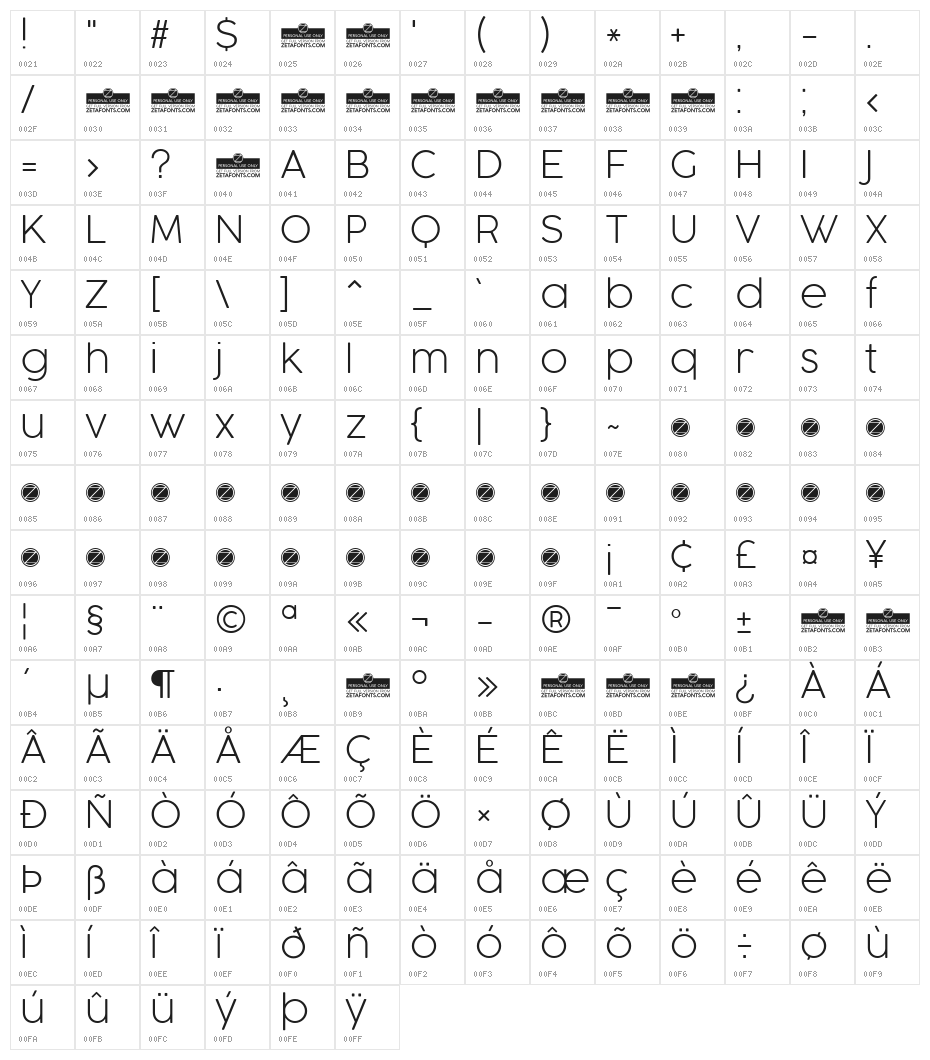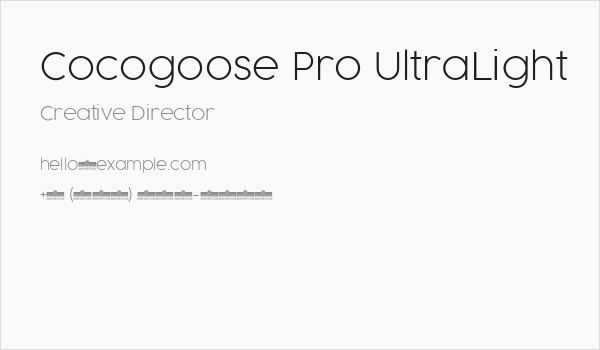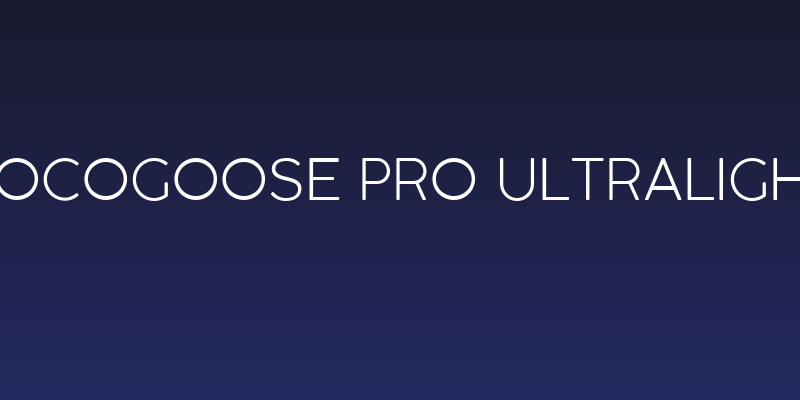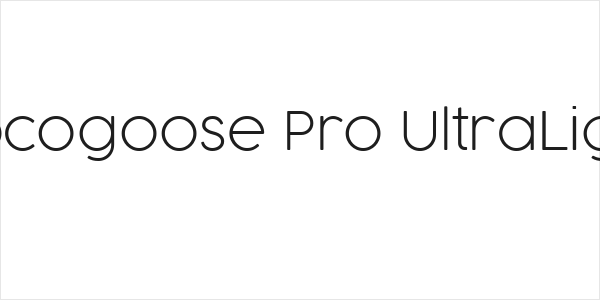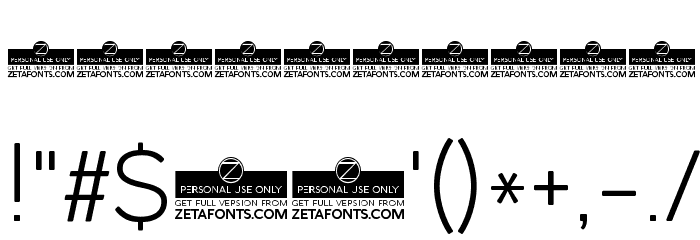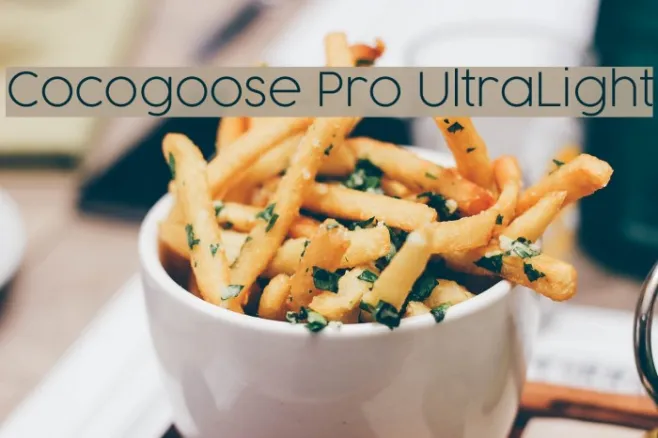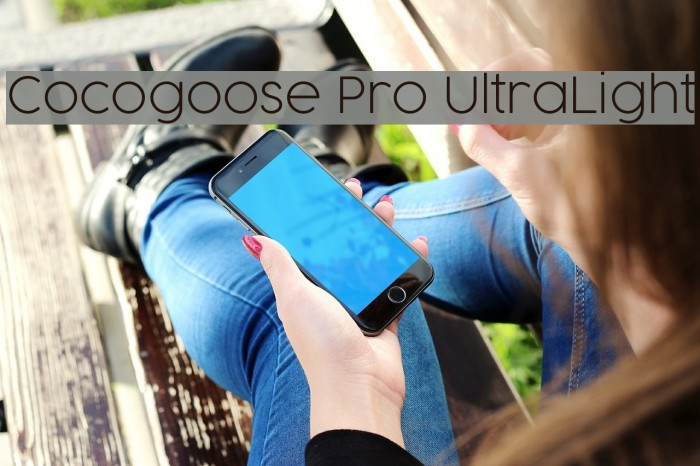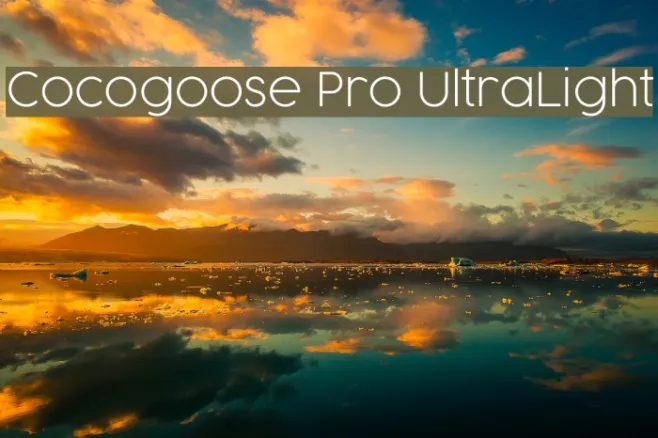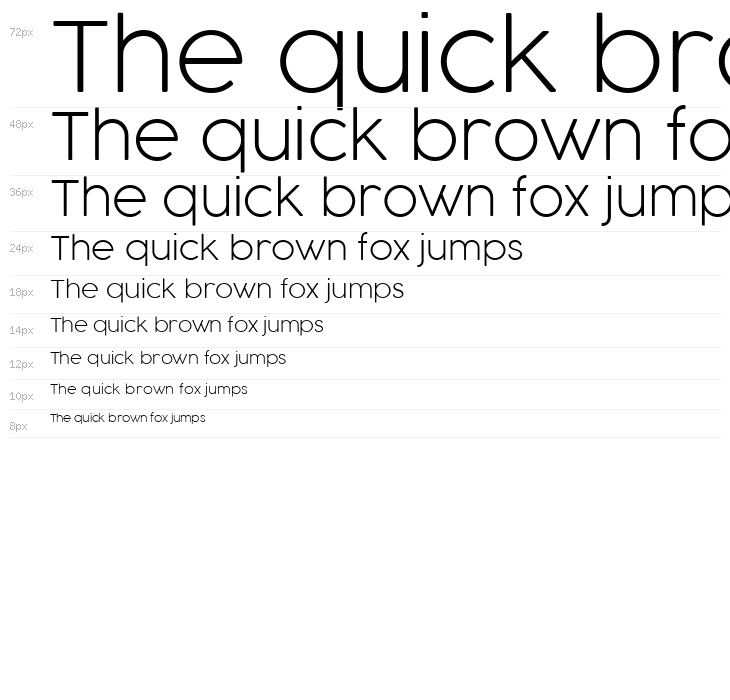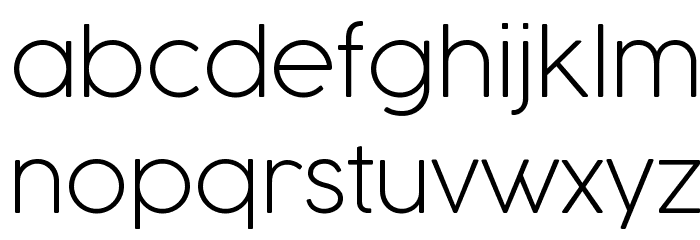
Cocogoose Pro UltraLight Font
Cocogoose Pro UltraLight Description
This font features a clean and modern sans-serif design with ultra-light strokes, offering a sleek and contemporary appearance. The characters are well-proportioned with a uniform stroke width, contributing to its minimalist aesthetic. The uppercase and lowercase letters maintain a consistent style, ensuring readability and elegance. The numerals and special characters are designed to complement the overall look, making it versatile for various applications. Its simplicity and clarity make it suitable for both digital and print media, providing a professional and polished look.
| Proposed Projects | Ideal for branding, web design, editorial layouts, and minimalist posters. |